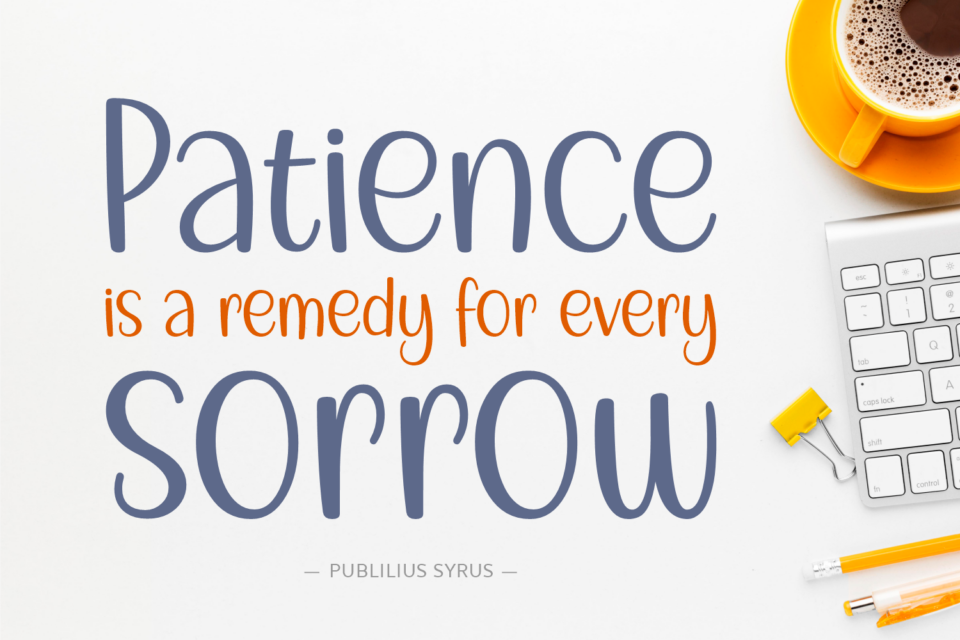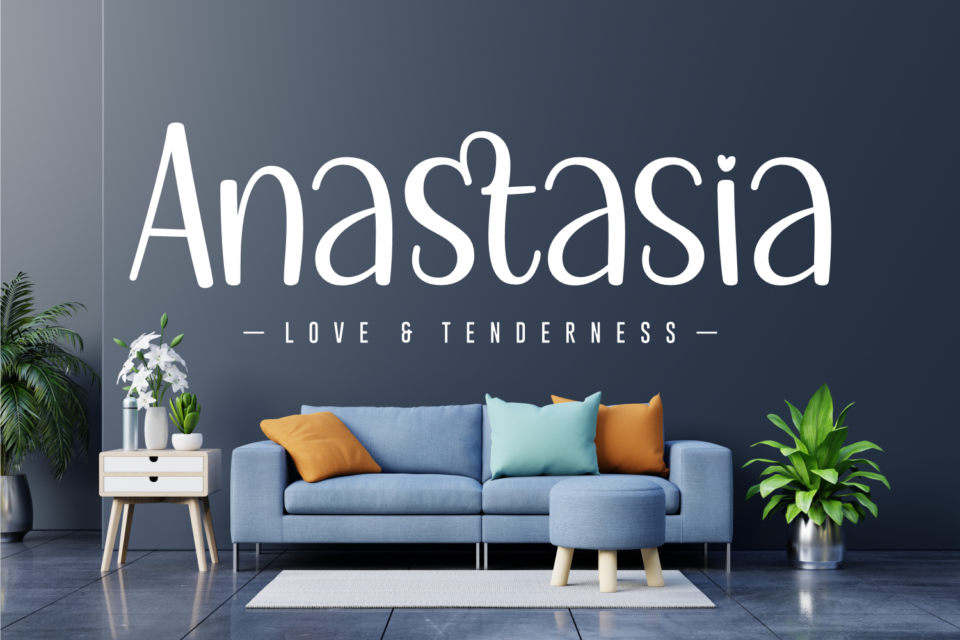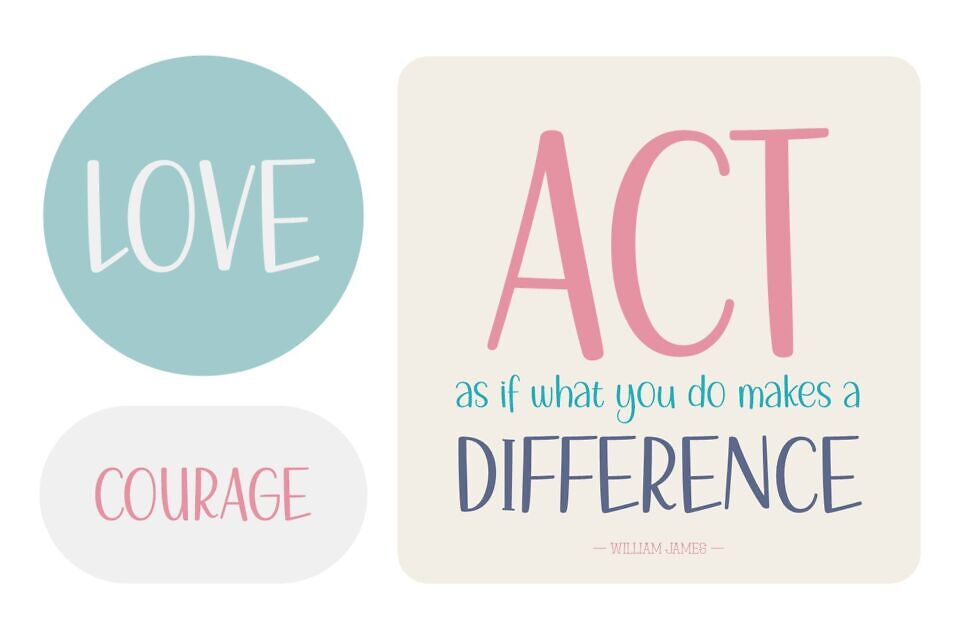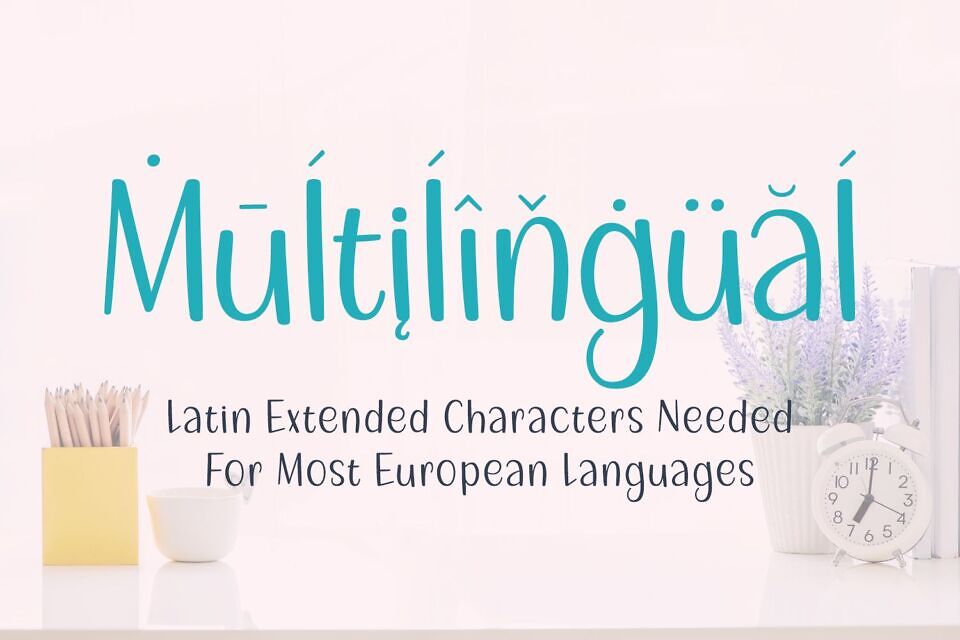
Anastasia is a playful and well-rounded handwritten font. This gentle font will look gorgeous on a variety of design ideas. It will add a joyful and romantic touch to each of your projects!